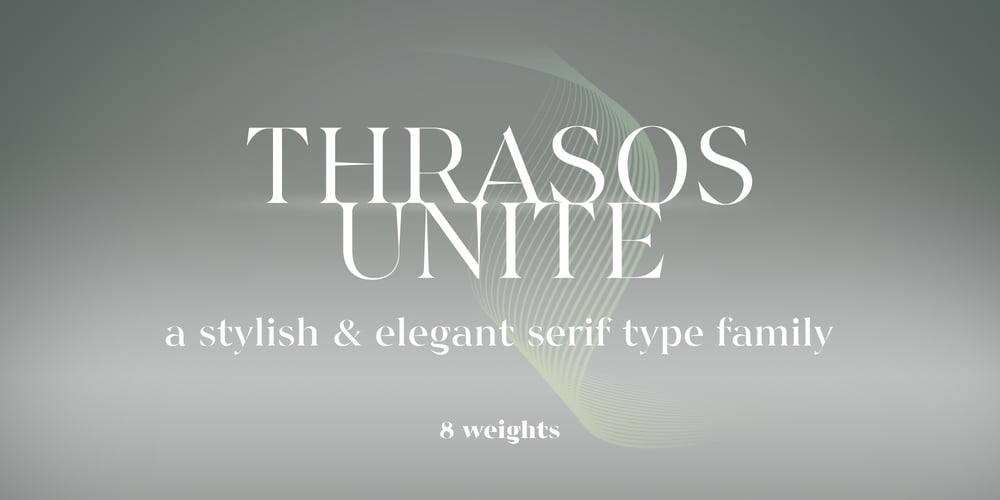
Thrasos Unite Font Family was designed by Pedro Madeira and published by Multiformis. Thrasos Unite contains 8 styles and family package options. Thrasos Unite was created mainly as display typeface and was based on the Thrasos typeface so that it could be more versatile and more fit for text use. Its unconventional characteristics gives it an elegant, but also bold character, and an overall venturous feeling.The combination of sharp edges with soft curves contributes to a dynamic and interesting look.This typeface is oriented towards branding and advertising, as well as titles and headings in magazine publications, but its uses are extremely broad.